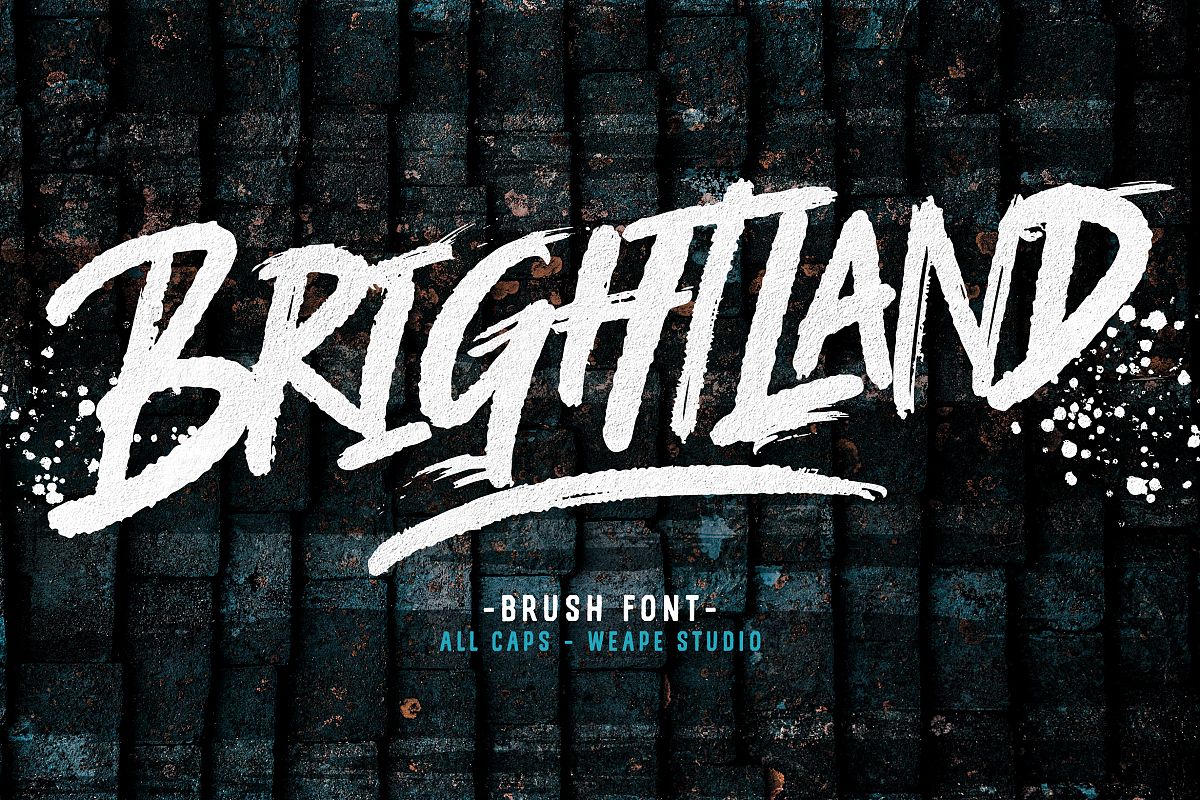
Brightland Brush Font
Brightland is brush font bursting with natural rough dry brush strokes, and the stroke of hand sharp and quickly. You can use and enjoy Brightland, for anything from promotional material and handwritten quotes, to product packaging, merchandise and branding projects.
And this font perfect for signature, logo, branding, poster, apparel, photography, title, social media post, ad banner, book cover, product packaging, handwritten quotes, greeting cards and advertising. You can create more easily with many ligatures and make it as if you wrote it yourself.All fonts is capitals containing upper & lowercase characters, numerals, multilingual support and a large range of punctuation.